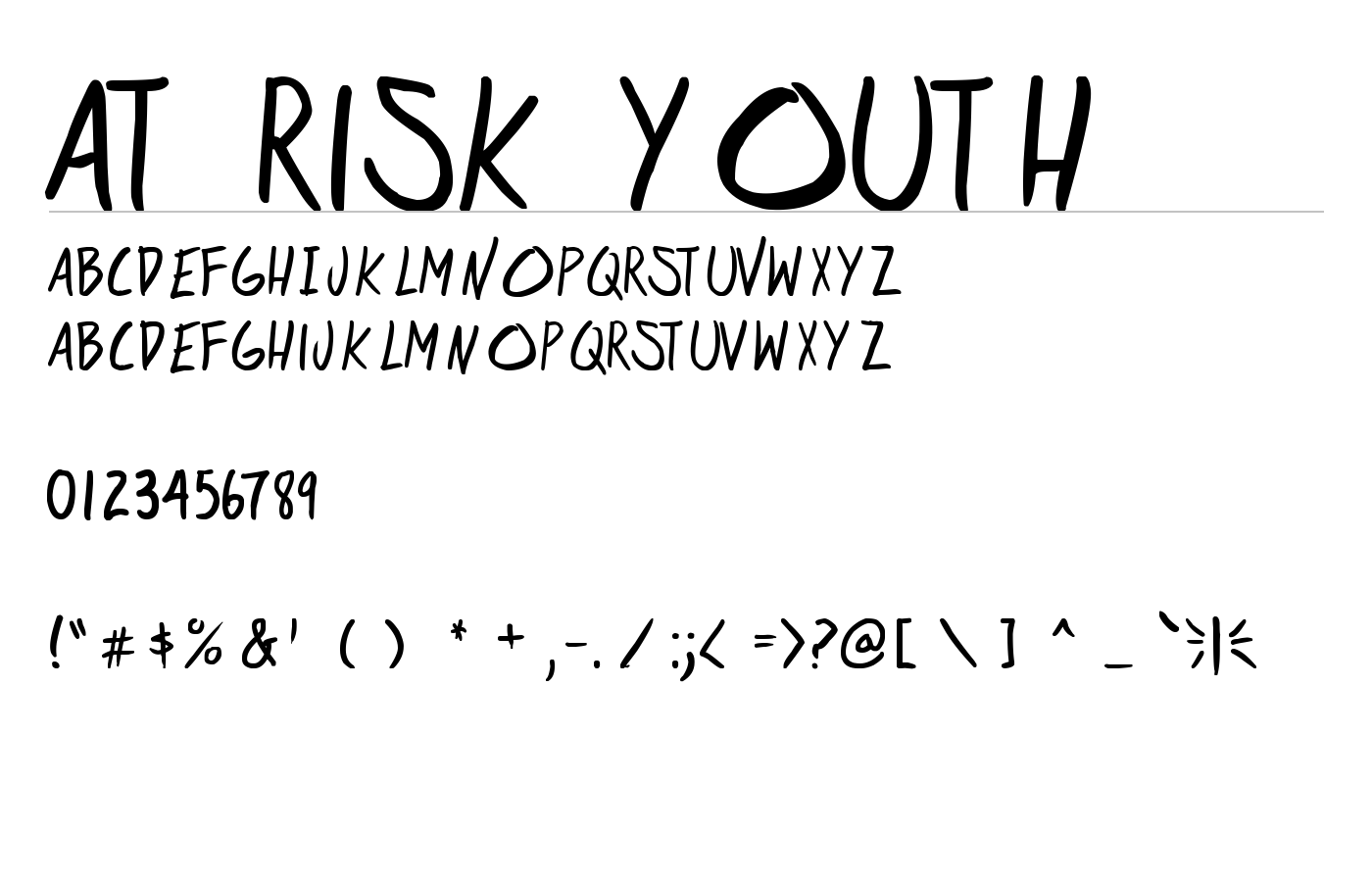
At Risk Youth is a casual, handwritten sans serif font with a playful and informal vibe. Its tall, narrow letterforms and uneven strokes give it a youthful, expressive character, making it ideal for creative projects, posters, and packaging that want to convey energy and personality. This font works well in headlines or short texts where a personal touch and approachable tone are desired.
| Font family | at risk youth Font |
| Designer | Andeh Pinkard |